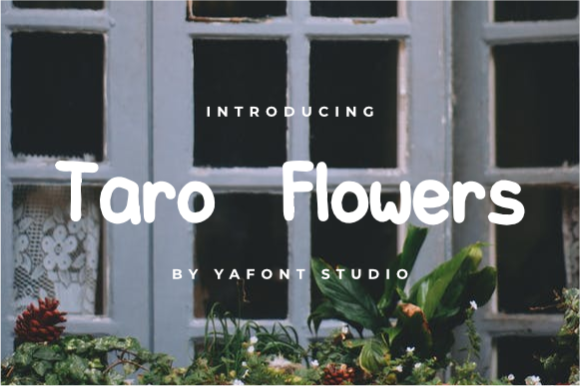
Taro Flowers Font
About Taro Flowers Font
Taro Flowers is a casual handwritten font. Add this chunky lettered font to your designs and notice how it makes them come alive!